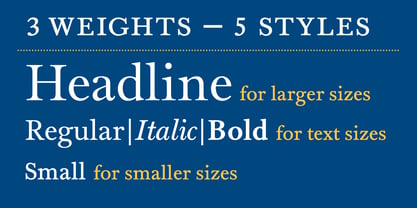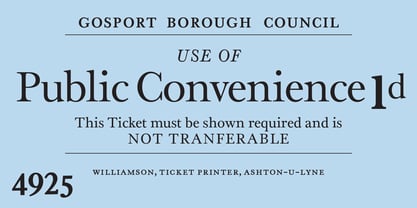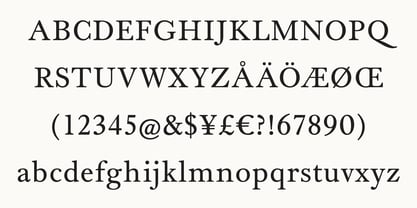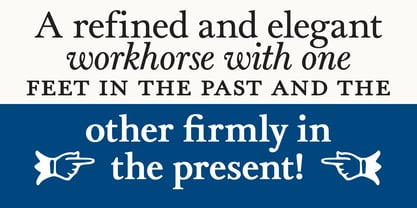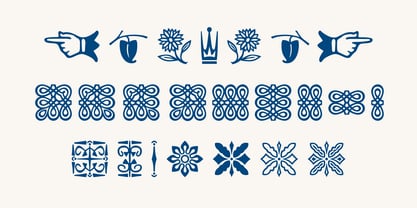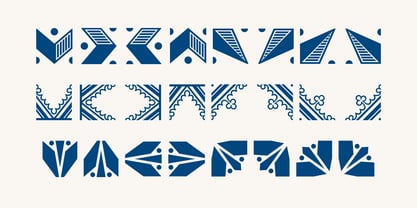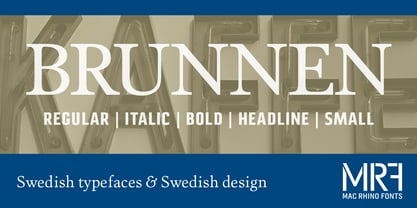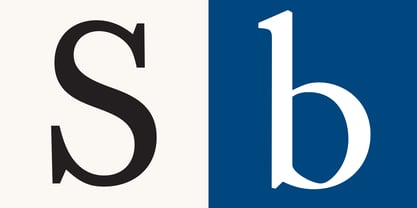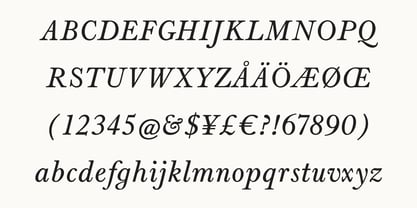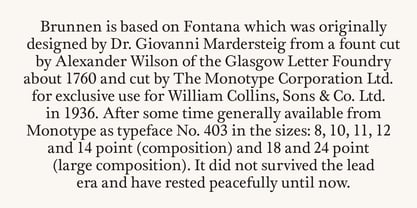
Brunnen
La familia tipográfica Brunnen fue diseñada por Stefan Hattenbach y publicada por MAC Rhino Fonts. Brunnen contiene 5 estilos y opciones de paquete familiar. Más información sobre esta familia
Brunnen is based on Fontana which was originally designed by Dr. Giovanni Mardersteig from a fount cut by Alexander Wilson of the Glasgow Letter Foundry about 1760 and cut by The Monotype Corporation Ltd. for exclusive use for William Collins, Sons & Co. Ltd. in 1936. After some time generally available from Monotype as typeface No. 403 in the sizes: 8, 10, 11, 12 and 14 point (composition) and 18 and 24 point (large composition). It did not survived the lead era and have rested peacefully until now. Brunnen have apart from the original Regular and Italic been equipped with a bold weight. All except Italic have been equipped with small caps that were missed out in the original design.